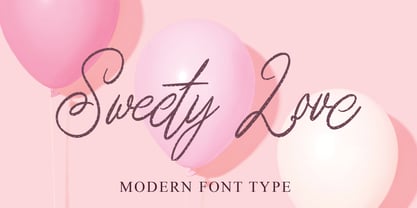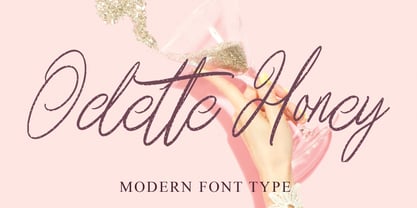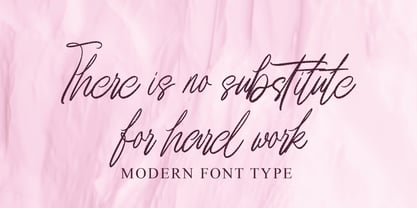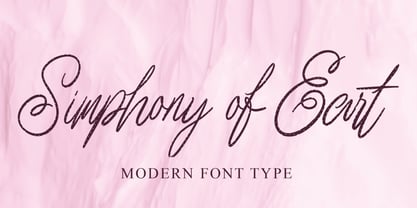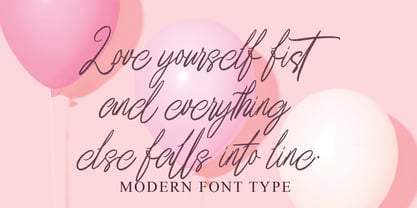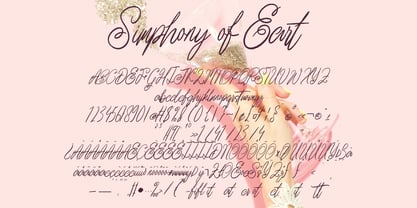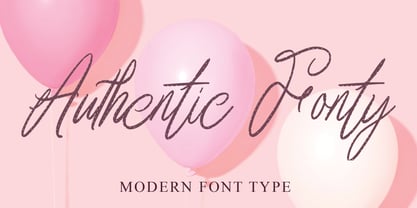
Simphony of Earth
The Simphony of Earth Font Family was designed by Kurnia Elis Setyorini and published by Naatypo. Simphony of Earth contains 1 styles. More about this family
Meet Simphony of Earth, your passport to elegance with a touch of nostalgia. This calligraphy script offers a remarkable renaissance of the 50s hand-lettered adverts and signage. It offers more than a visual experience, it's an emotion, reinventing warmth and endearing sentiments. Every swirl in this luxurious script is meticulously crafted, infusing a playful and spirited vibe into your work. Let the lavish curves and intricate flourishes be the heart of your projects, radiating positivity and vivacious energy. Rediscover the enchanting allure of bygone times with Simphony of Earth, truly a symphony for the senses.